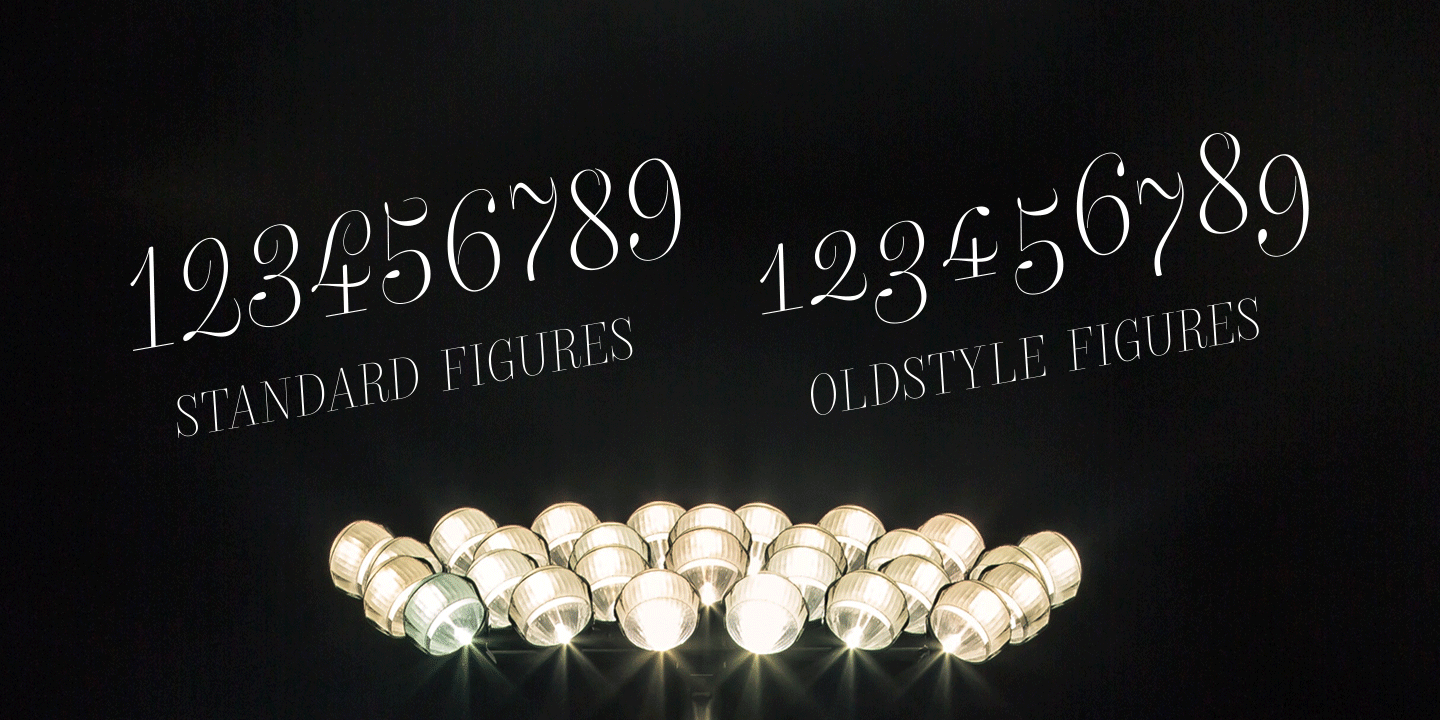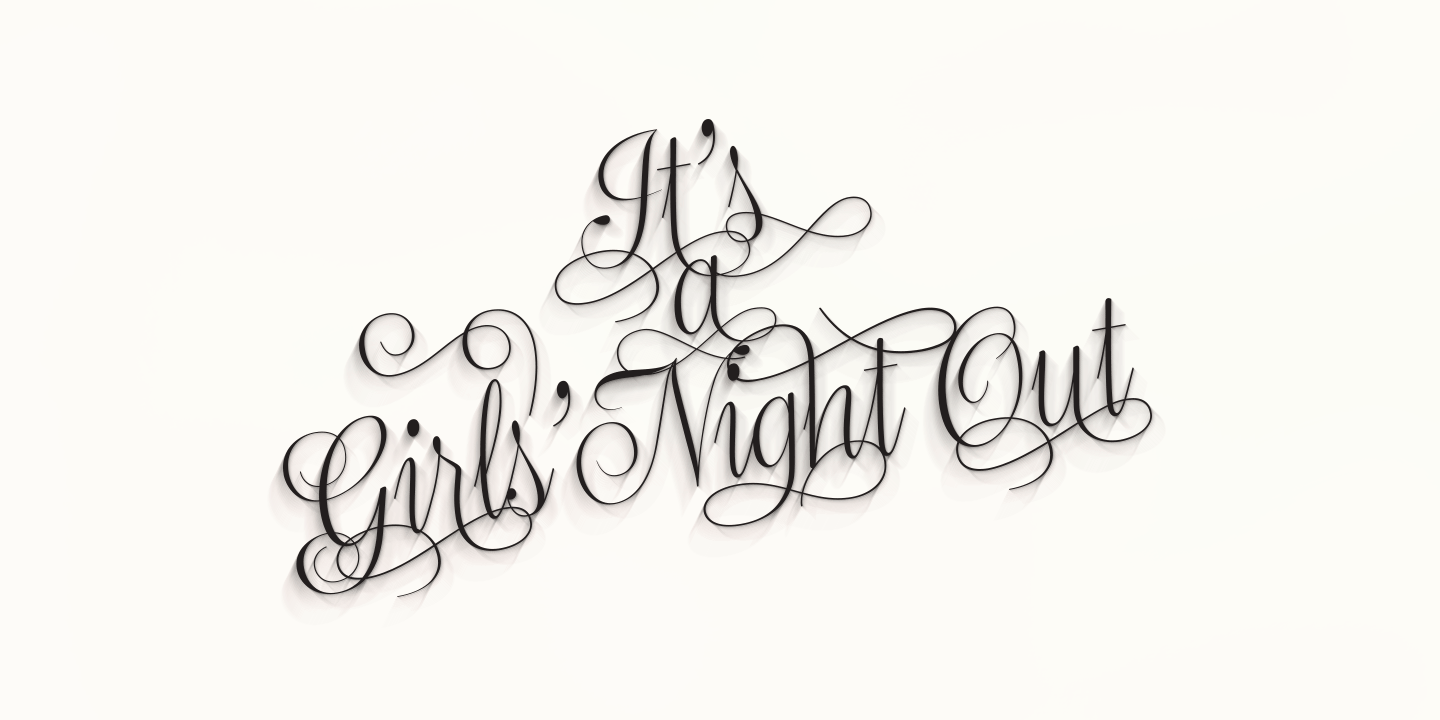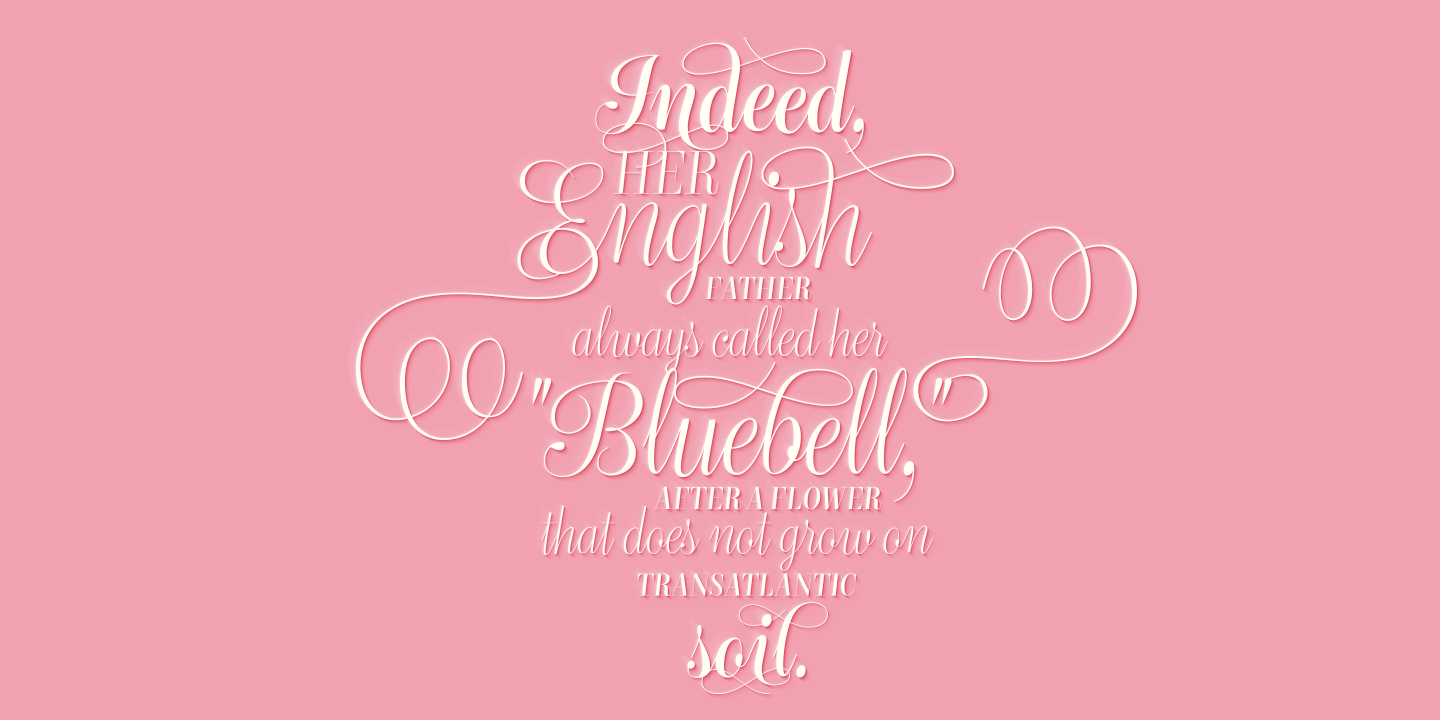
About Bluebell
Bluebell is a modern script type family in the style of copperplate calligraphy. It comes with six weights from extra light to extra bold, all of them maintaining the distinct high contrast. Rich with Open Type features, Bluebell includes Swash & Stylistic…